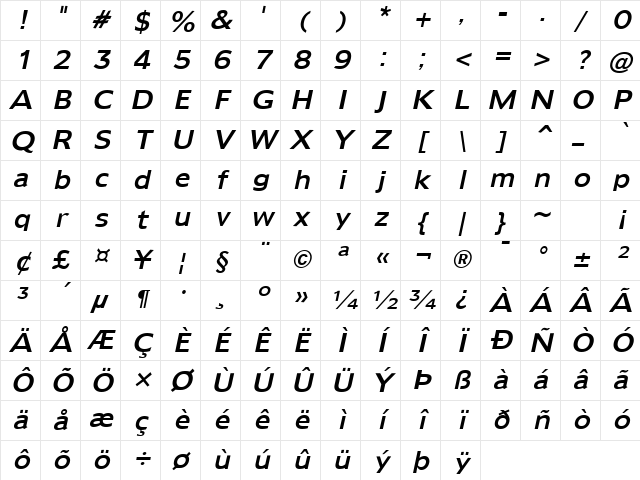
Adams is a composed and adaptable typeface that performs quietly and consistently across a wide range of design contexts. The slanted form adds forward momentum and visual energy.
Pro Tip: Use Adams for emphasis, pull quotes, and subheadings where its slanted energy can add rhythm to the layout.